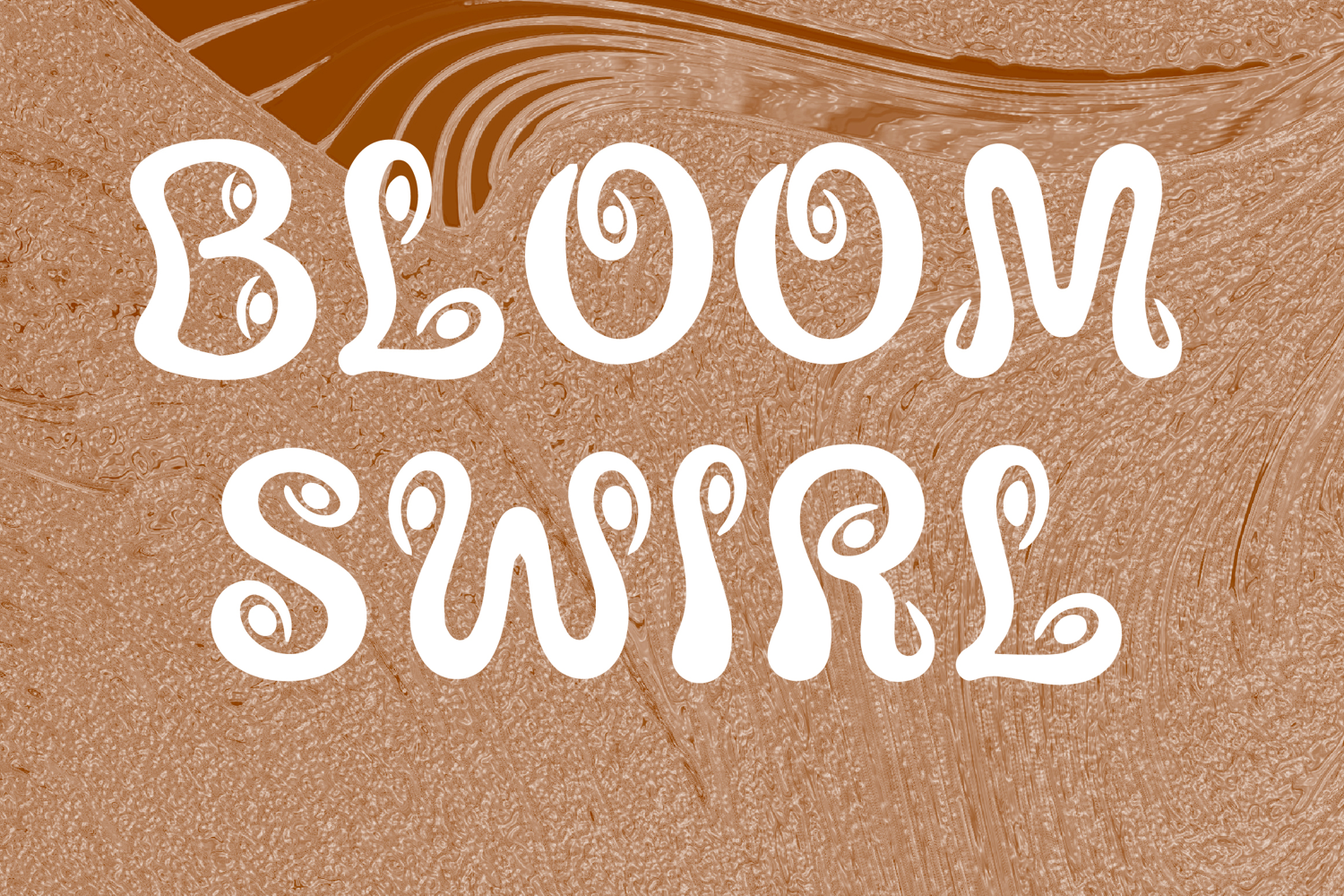
Bloom Swirl
Bloom Swirl is a whimsical decorative display font with a soft retro-inspired style and playful artistic charm. Its uppercase letterforms feature flowing curves, rounded shapes, and elegant swirl details that create a dreamy, cheerful, and eye-catching look. Designed with uppercase letters A–Z and numbers 0–9, Bloom Swirl is perfect for branding, posters, packaging, invitations, logos, social media graphics, and creative projects that need a sweet and memorable statement.